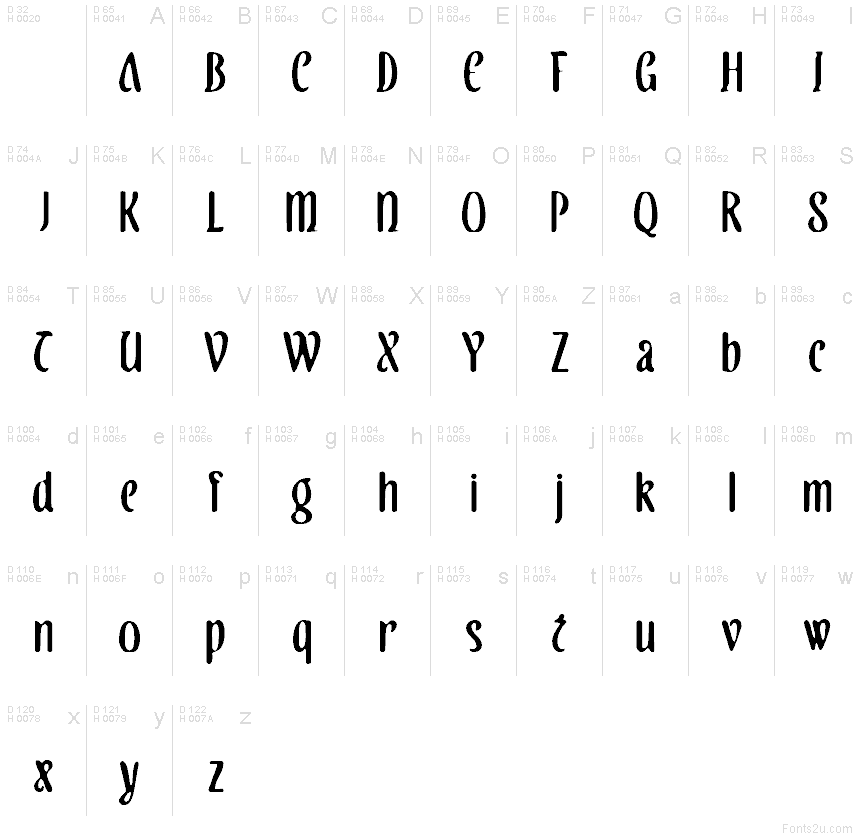
CS Athens Drawn font by Craft Supply Co. is a free bold vintage font. Part of the CS Athens family, it stands out with inky, brush-drawn strokes that swell and taper, giving each letter a hand-painted rhythm. Rounded terminals and subtle wobble add warmth, while the tight verticals keep it legible at headline sizes. The result feels like a well-loved signboard—lively, tactile, and unmistakably human.
Using CS Athens Drawn, titles snap into focus without losing charm. It shines on cafe menus, boutique signage, craft packaging, festival posters, bottle labels, and retro travel postcards. This free font loves generous tracking and big sizes; pair it with a clean geometric sans for body copy to let the brushy texture breathe.